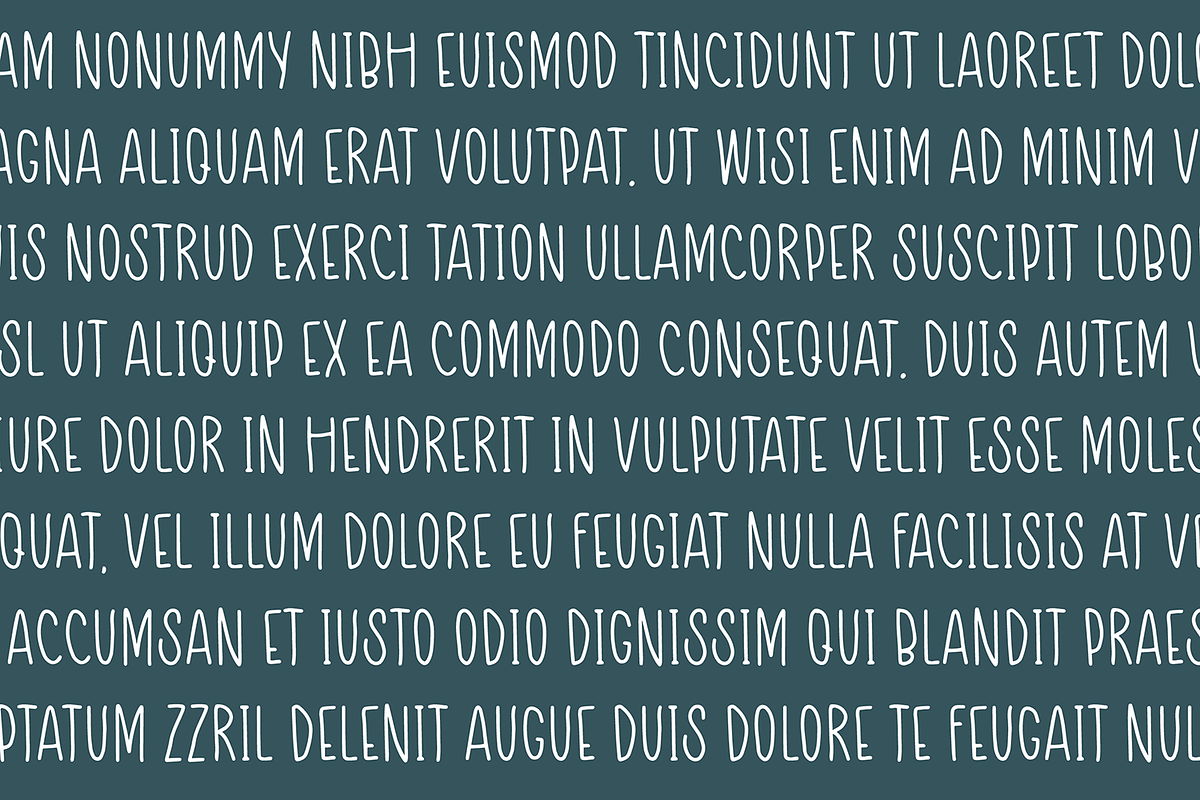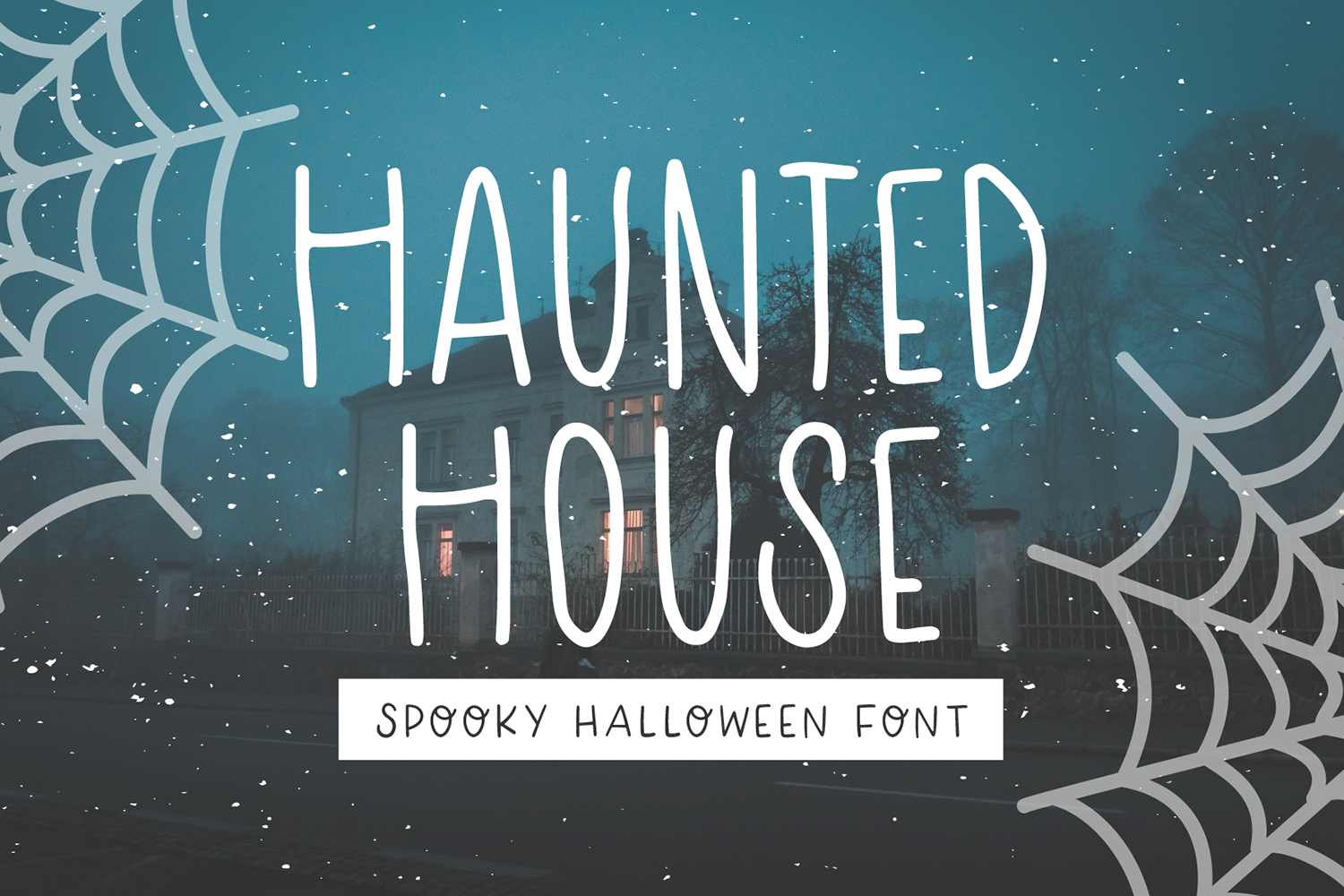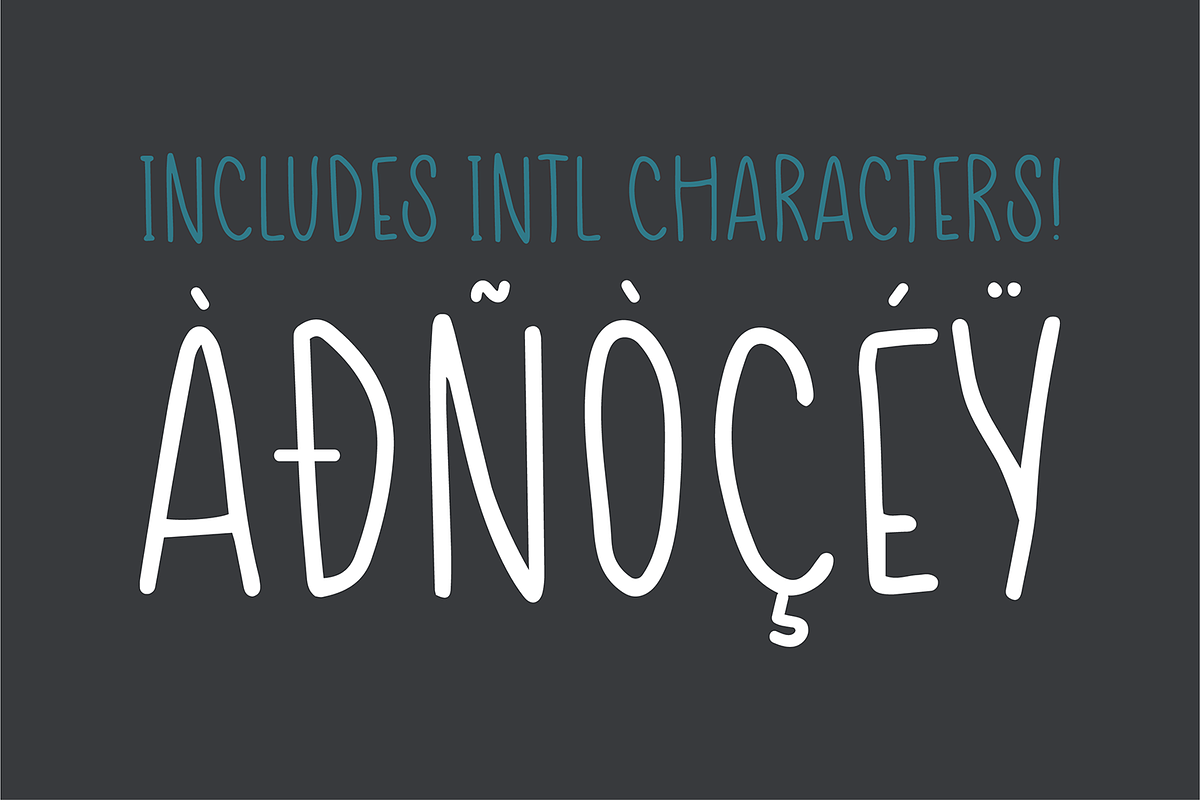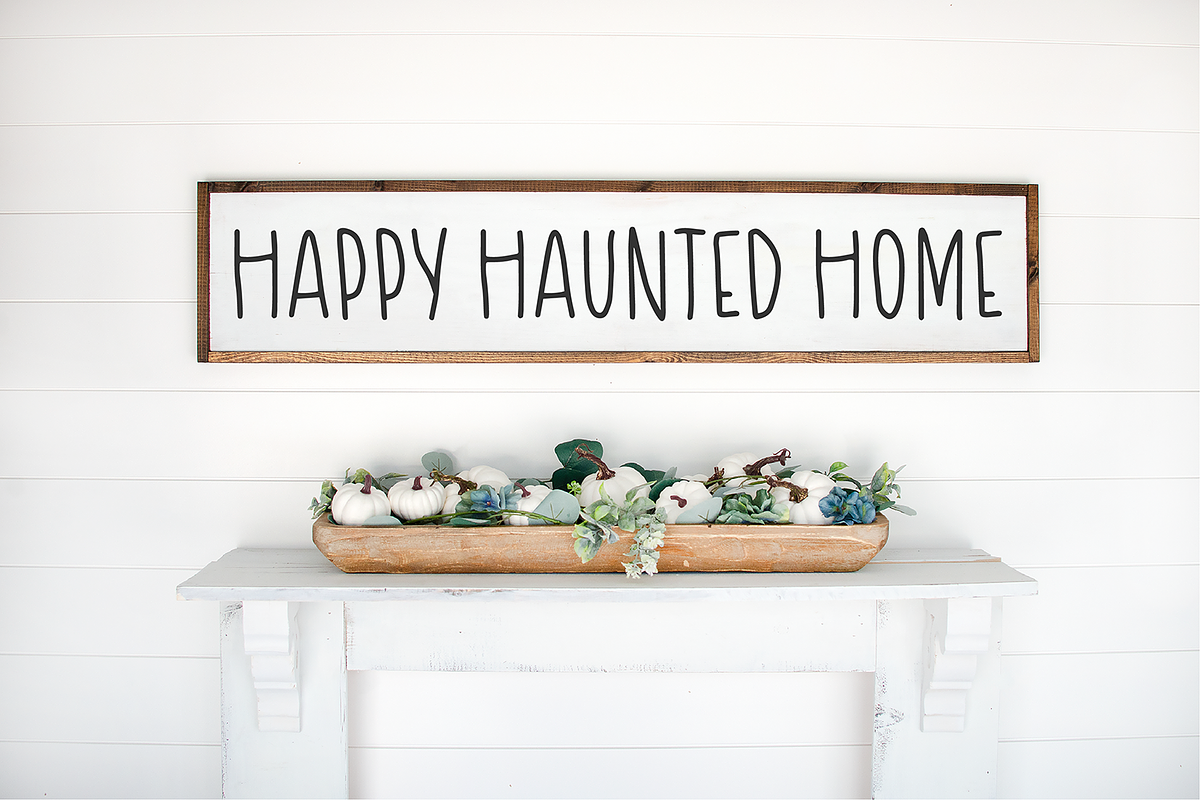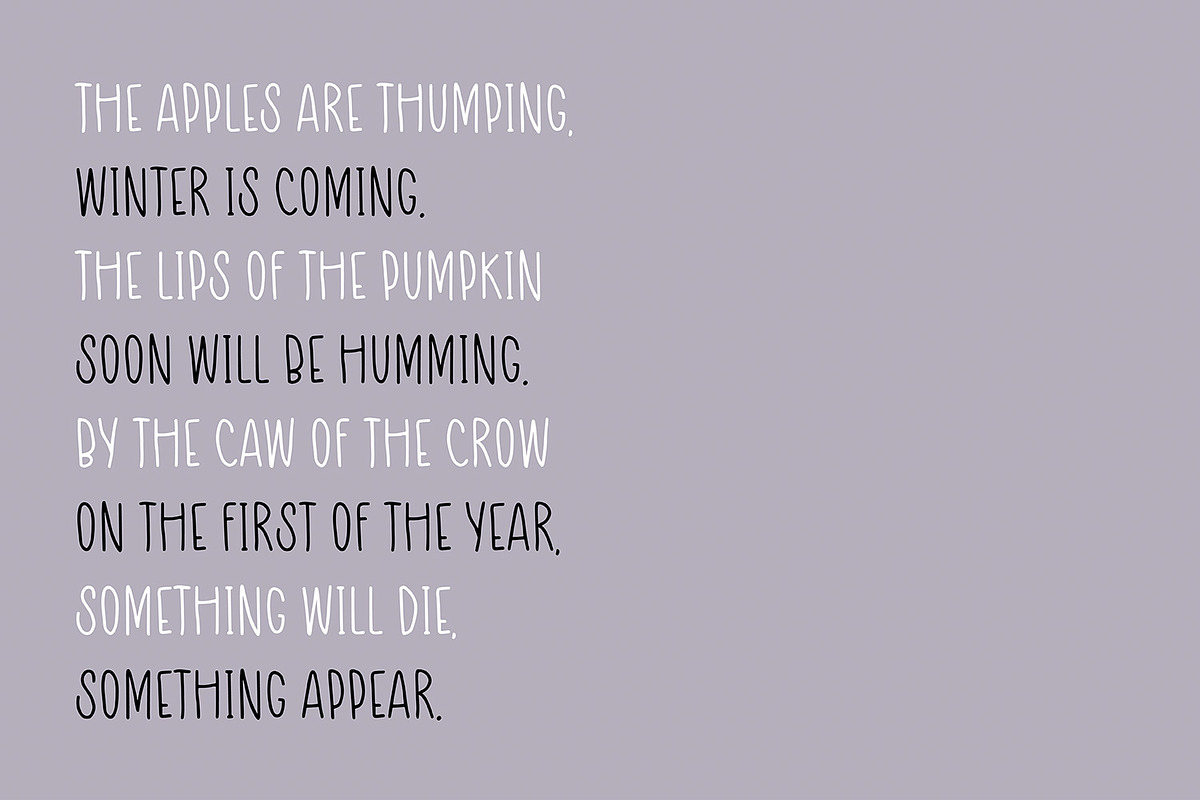
HAUNTED HOUSE Spooky Halloween Font
"Haunted House"
A spooky print font perfect for Halloween.
This font comes with all caps letters, numbers, basic punctuation, and intl characters!